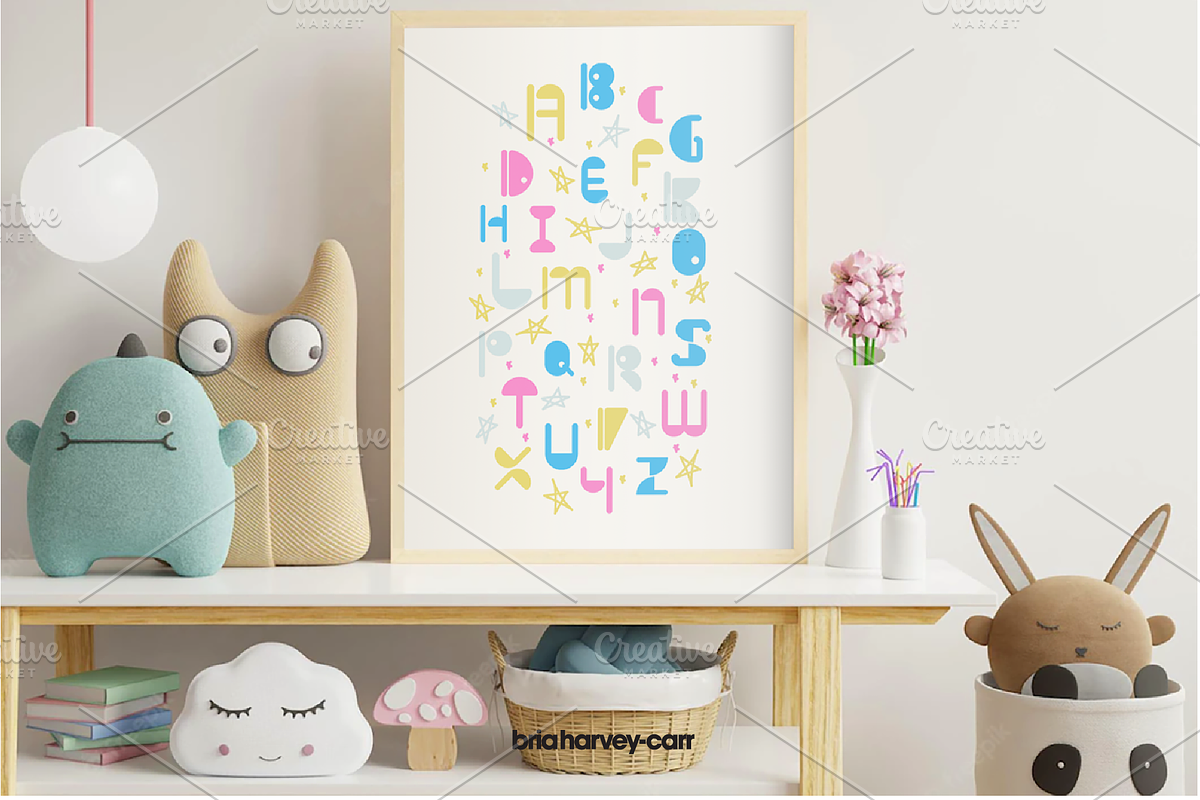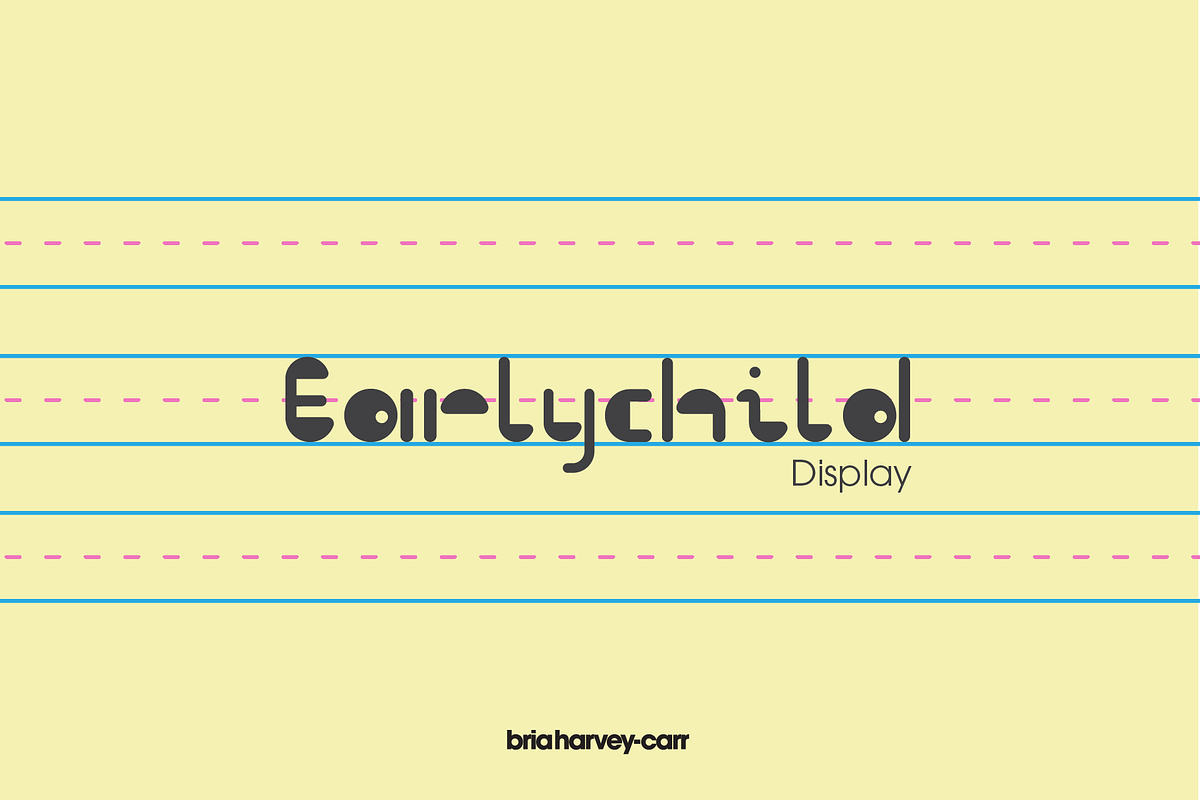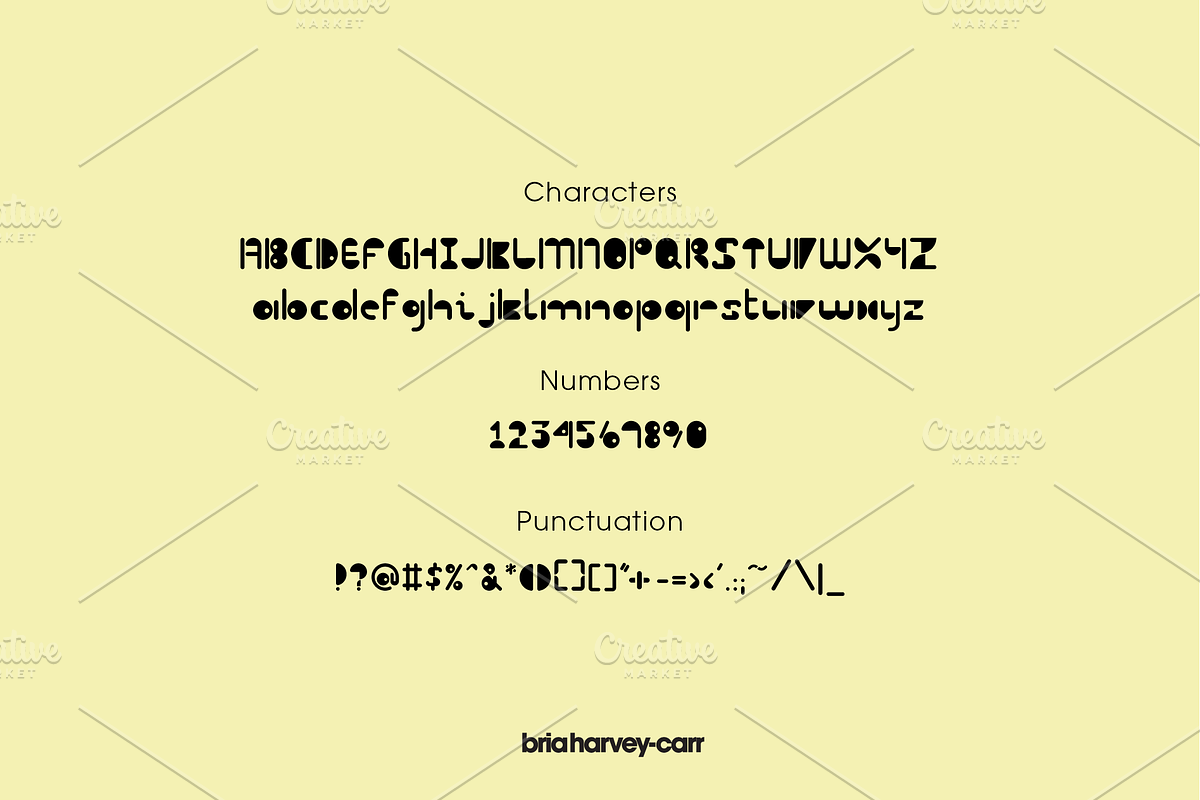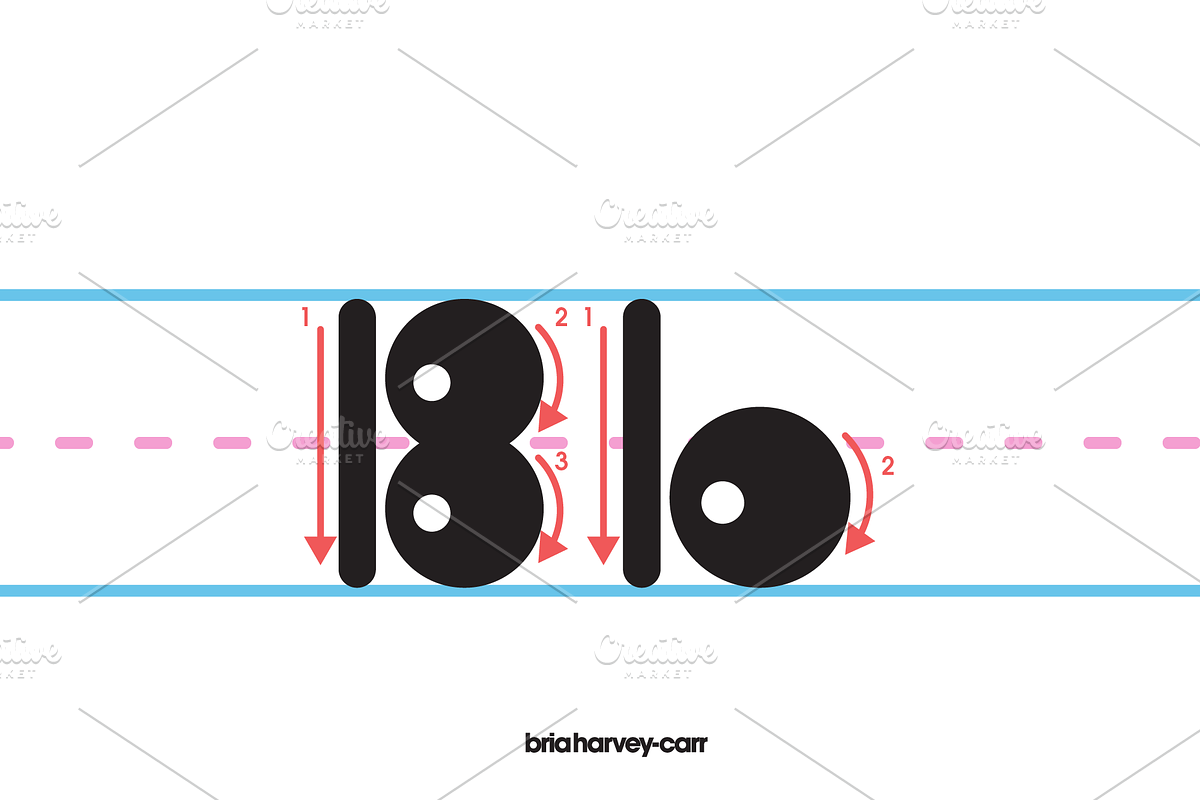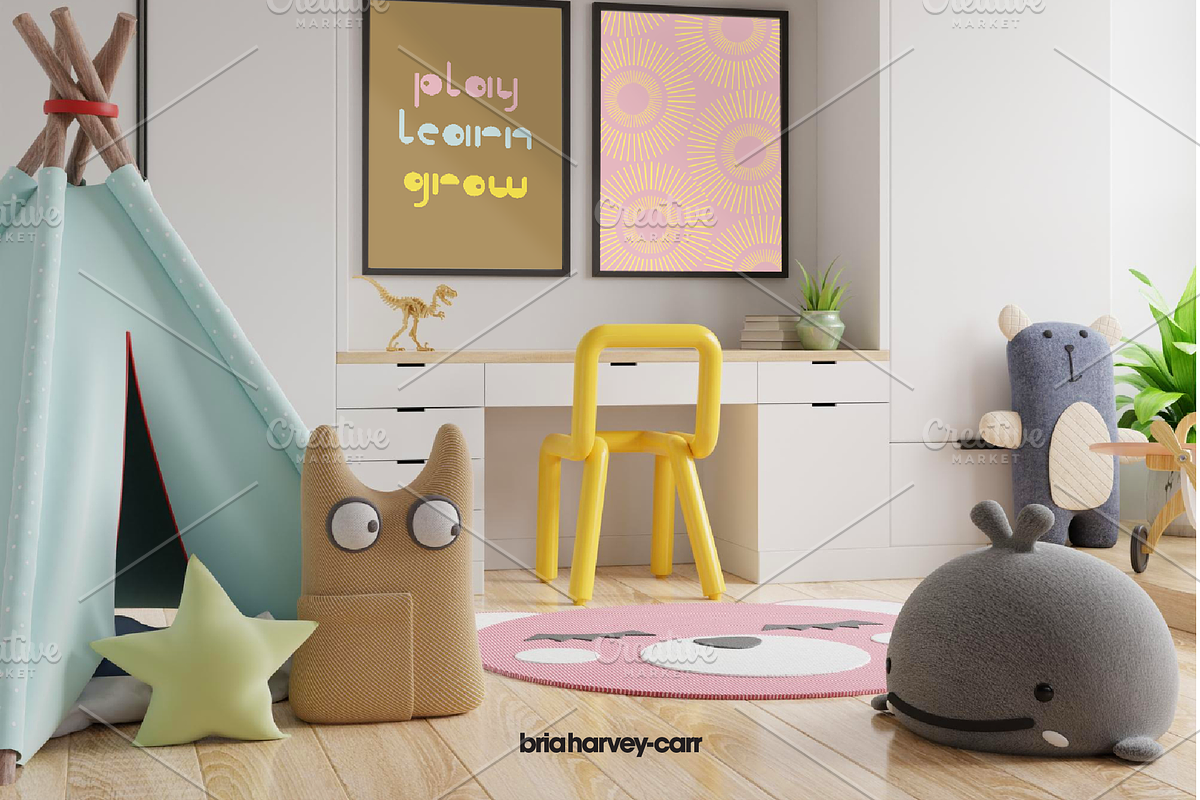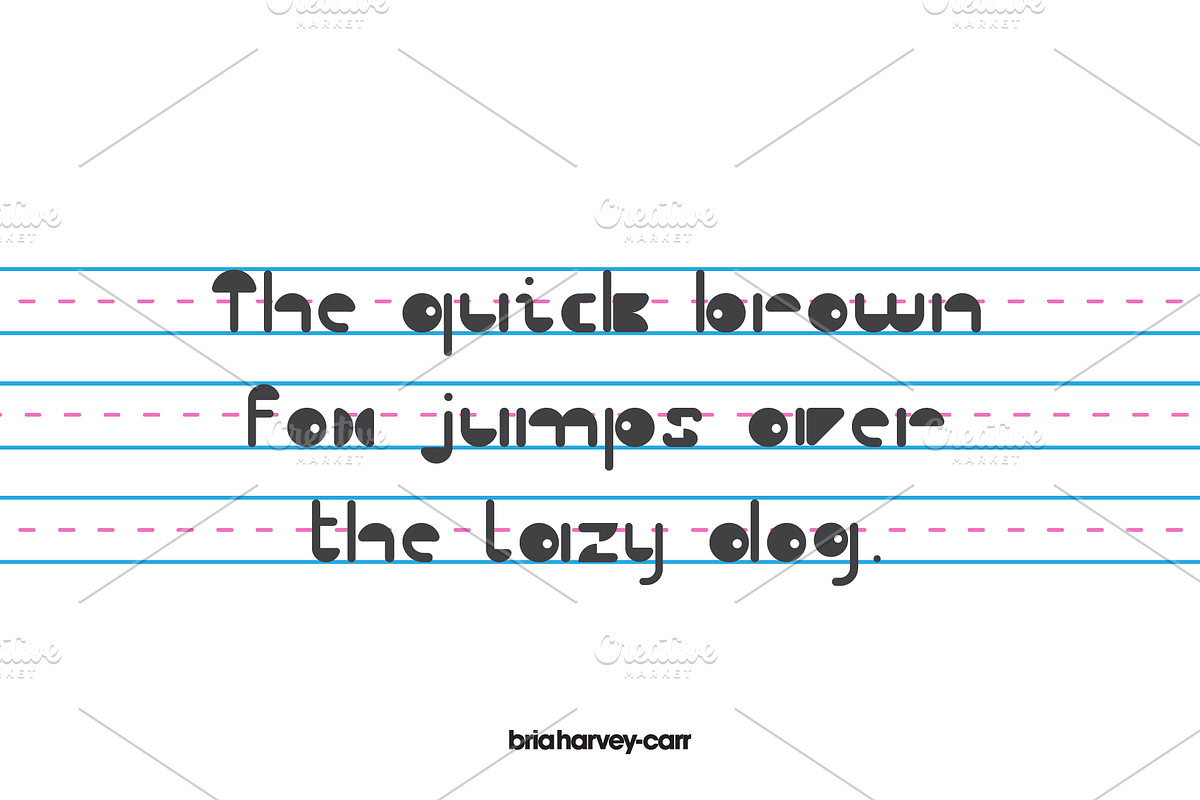
Earlychild Display
This youthful sans serif display typeface is comprised of various combinations of circle fractions and rectangles. Basic shapes come together to act as the simple beginnings of early childhood education. It was designed by Bria Harvey-Carr